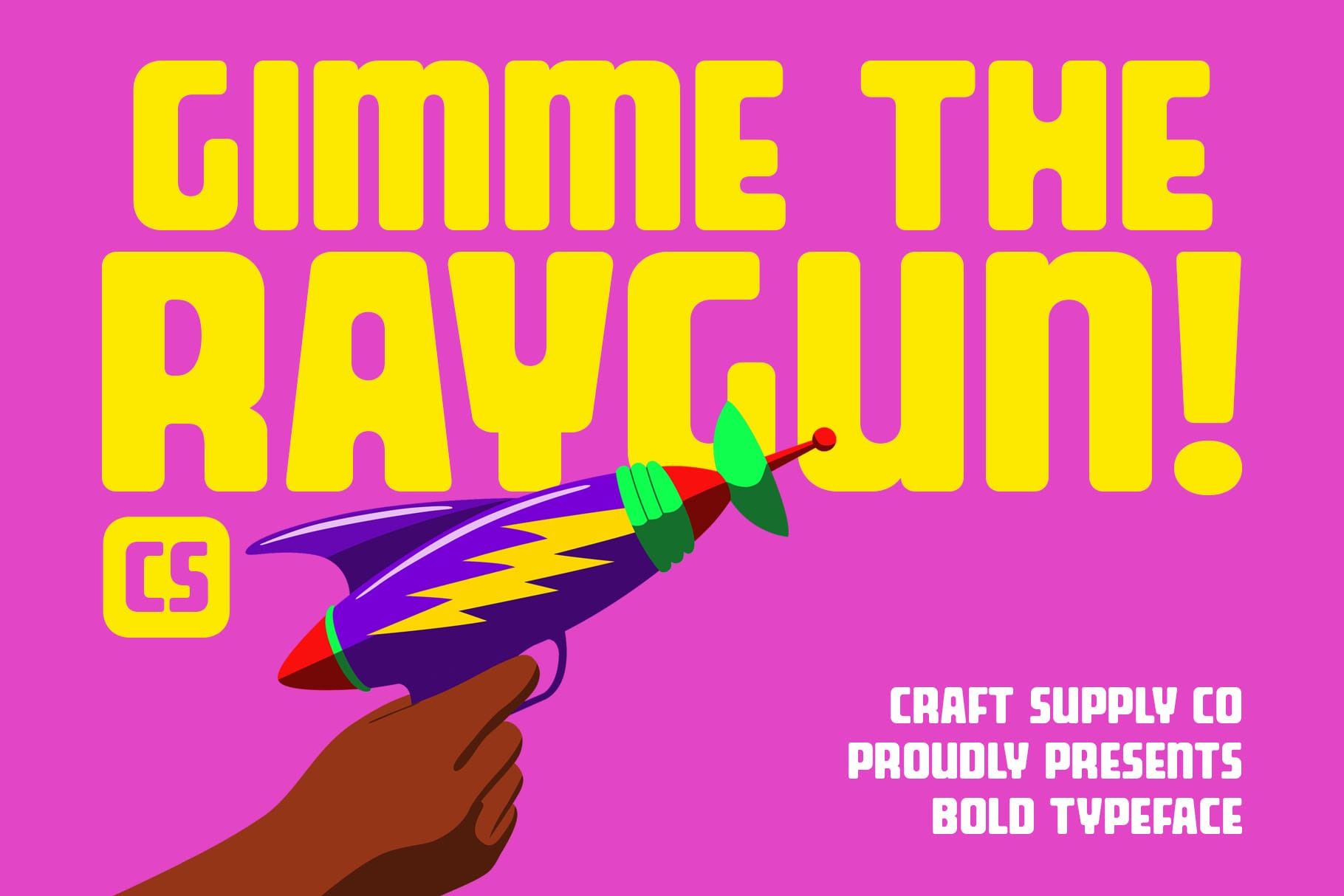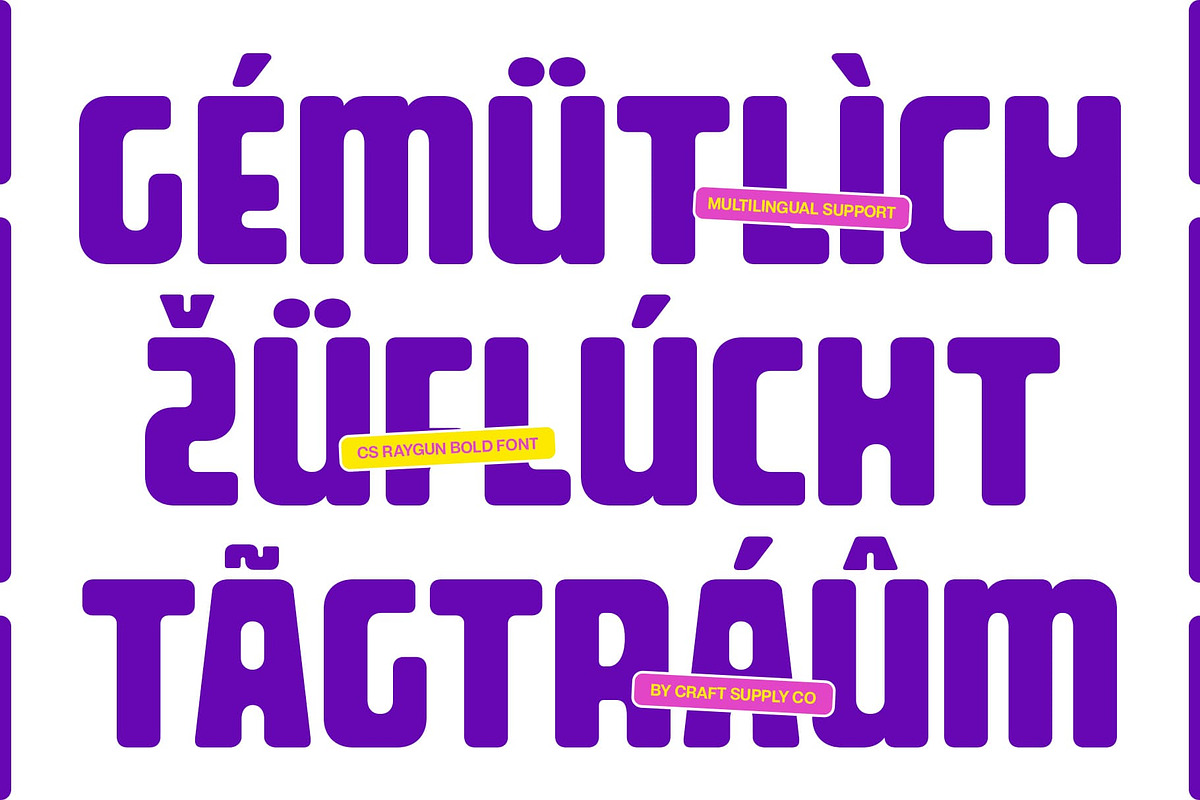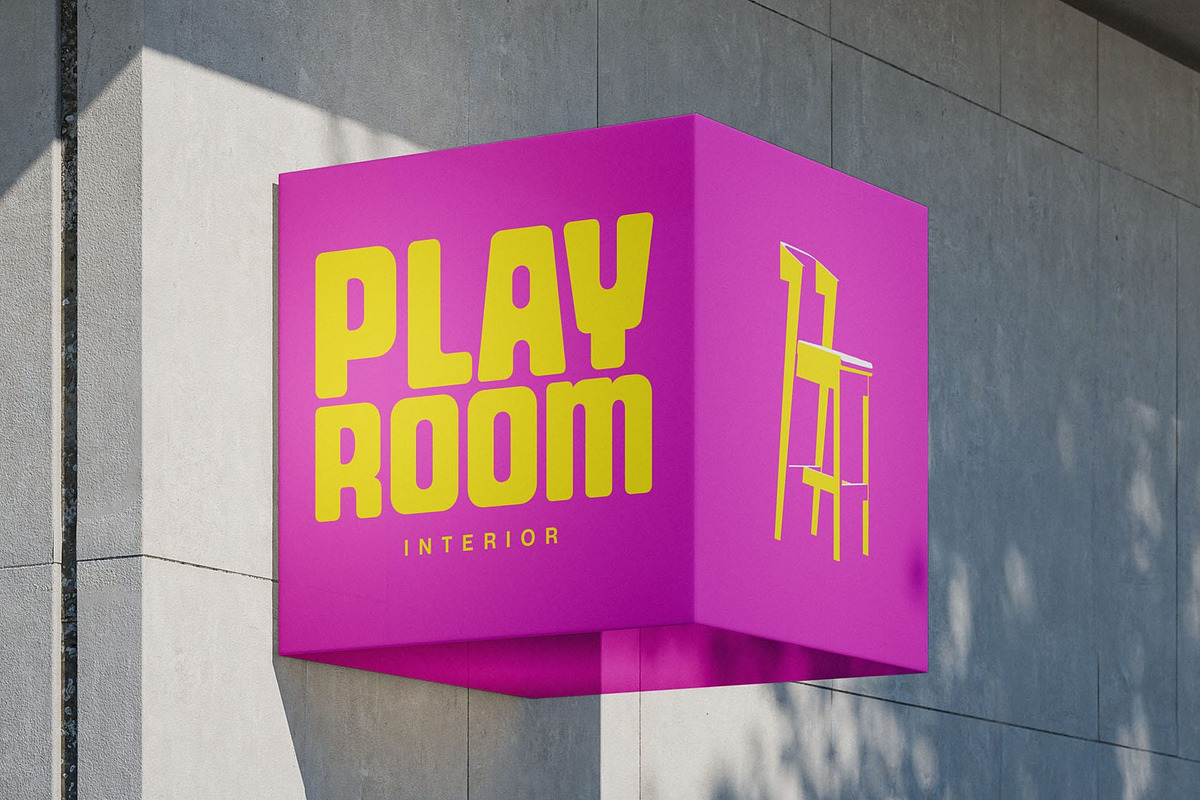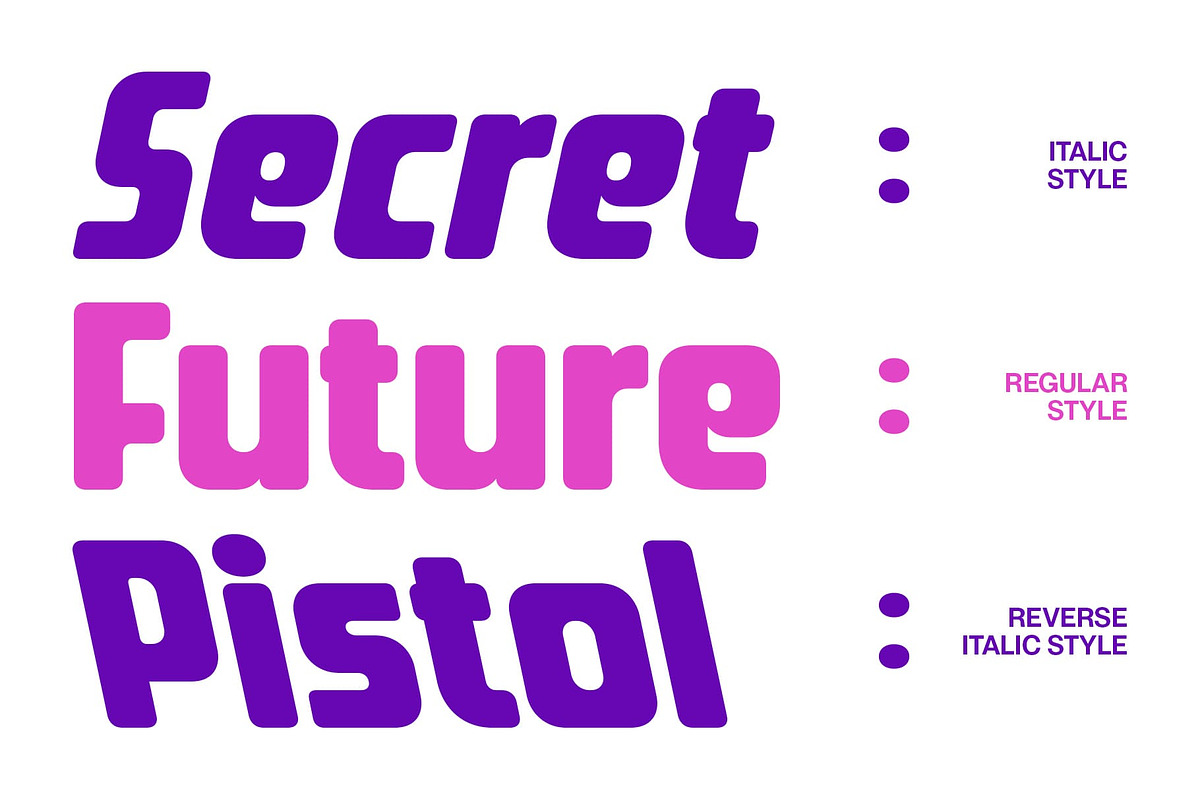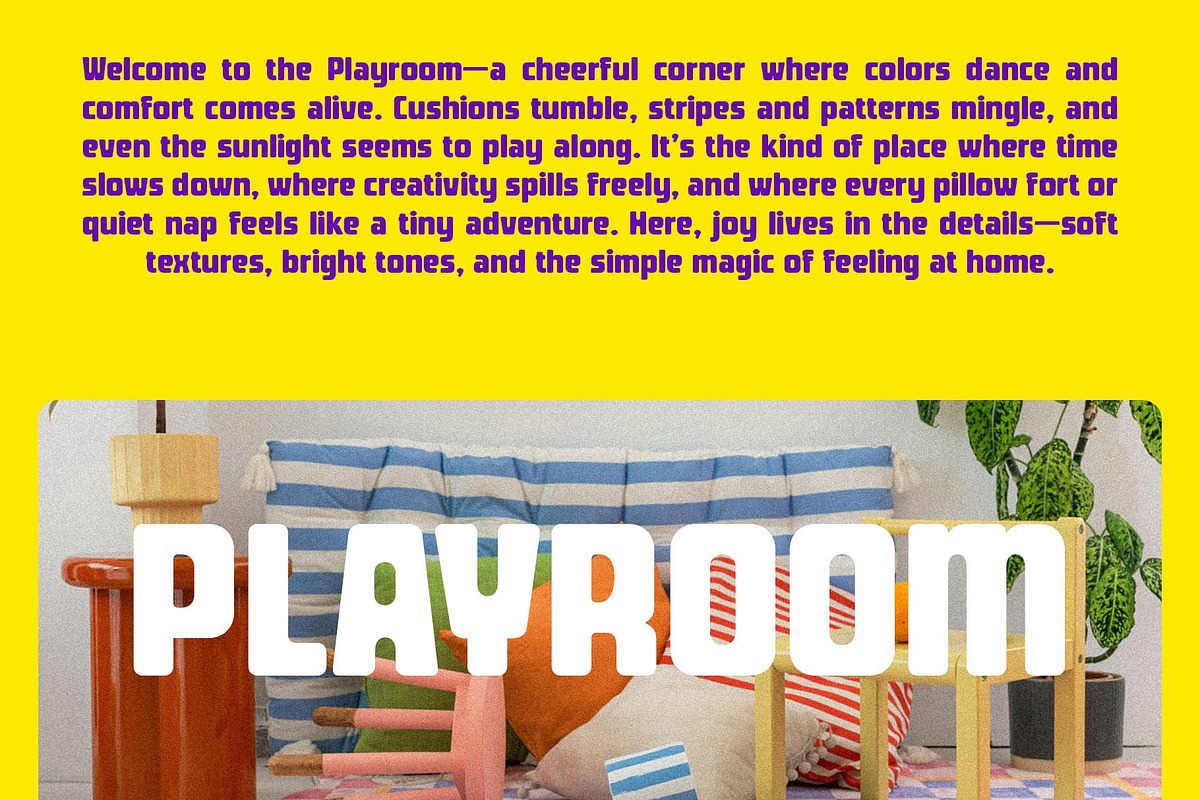
CS Raygun – Bold Display Typeface
CS Raygun – Bold Display Font: Power, Funk, and Modern Impact
Dynamic Bold Display Typeface This is a bold display font built to make a statement. With its strong geometric presence and funky rhythm, this typeface captures attention instantly. Designed for designers who want their message to shout with personality, this font blends confidence, creativity, and bold visual appeal.
Geometric Strength with Funky Attitude Every letter in this font carries weight and structure, yet remains playful in its proportions. The geometric base gives it a modern, assertive look, while the funky touches add a human, expressive twist. This balance makes it perfect for visuals that are both strong and full of life.
Made for Bold Headlines and Branding Whether you’re crafting a headline that needs to stand out or designing an unforgettable logo, this font delivers maximum impact. Its bold and heavy form ensures high readability and visual authority, making it ideal for posters, packaging, or digital branding that demands attention.
Perfect for Designers Who Dare This font is more than a typeface it’s a visual statement. Built for creators who think bold and design louder, this font transforms ordinary compositions into captivating visual experiences. Use this font to amplify your message with power, style, and unmistakable flair.